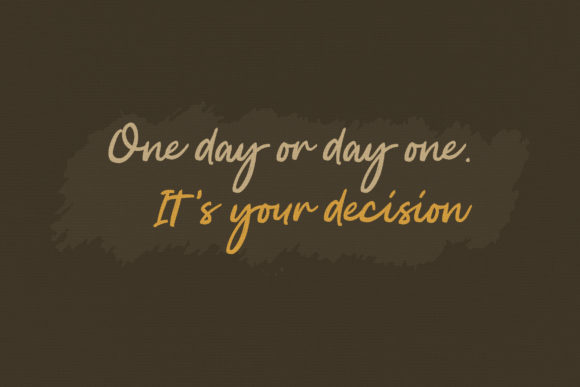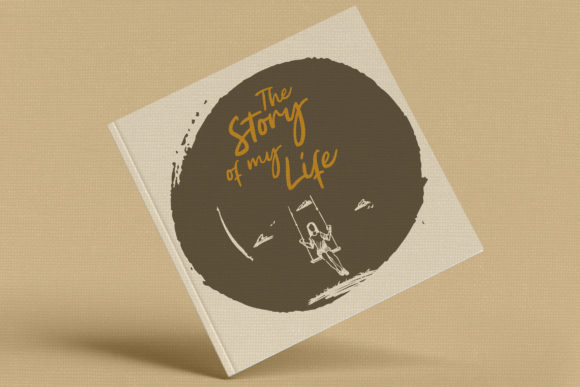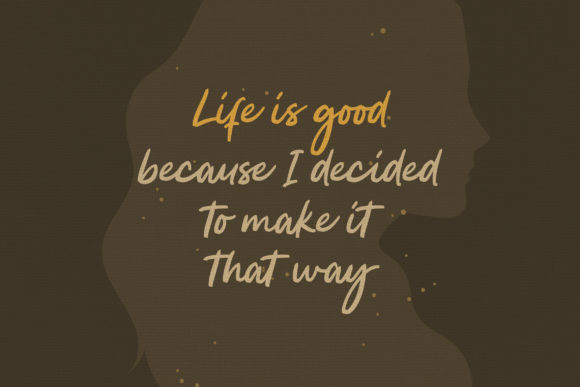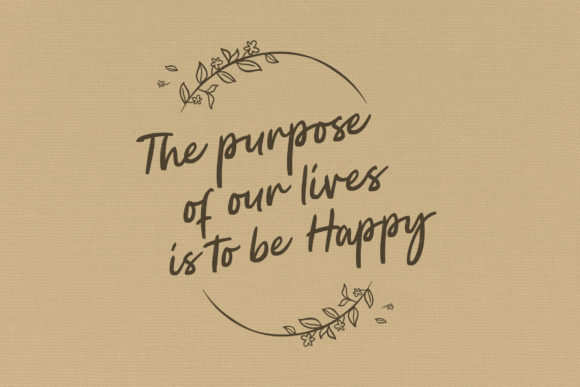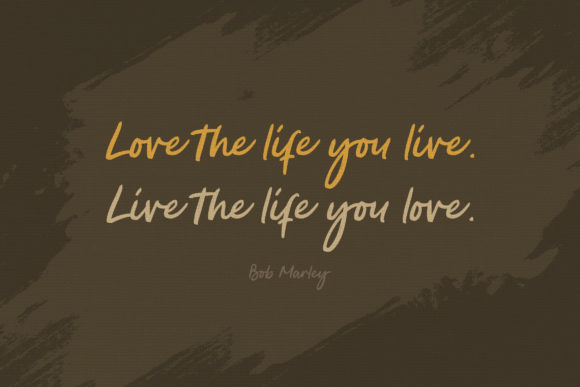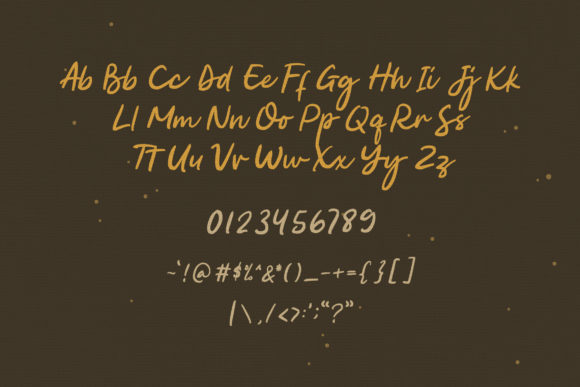
Lovely Day Font
About Lovely Day Font
Lovely Day is a stylish handwritten font. Casual and friendly, this font will fit a variety of formal and informal designs. The only limit is your imagination.